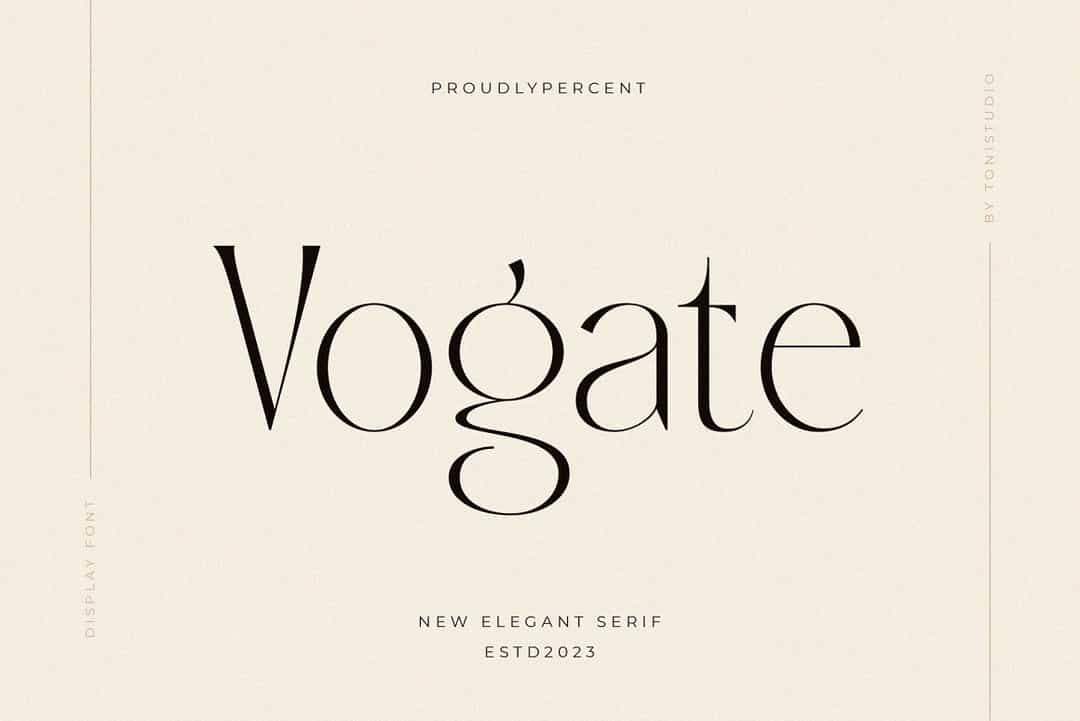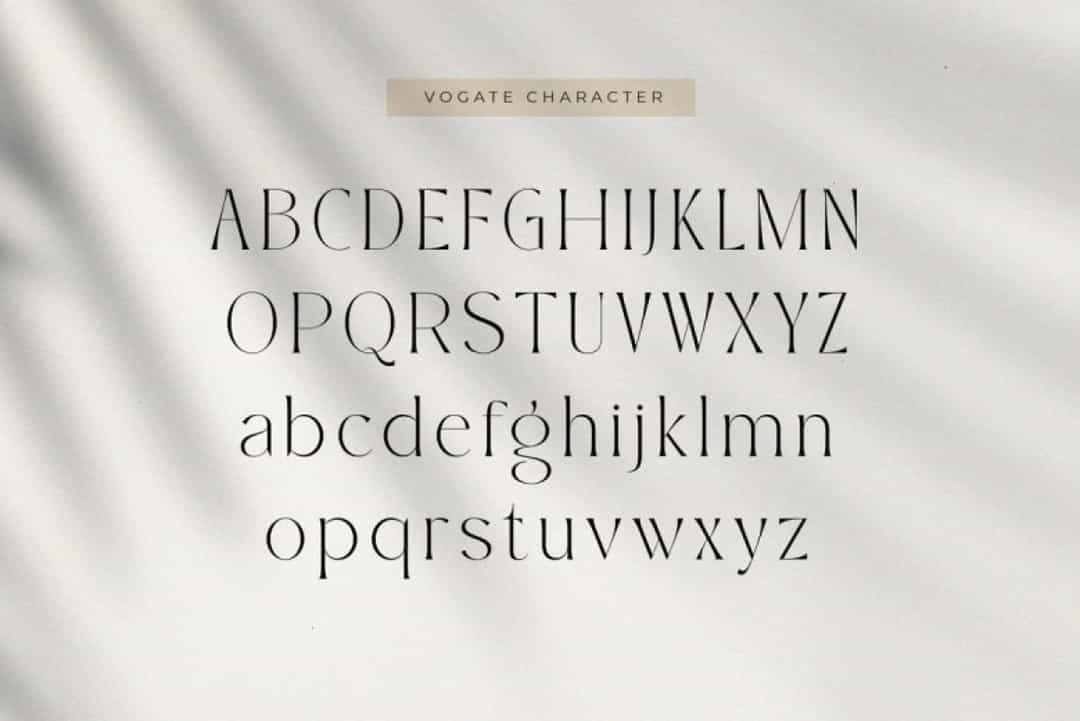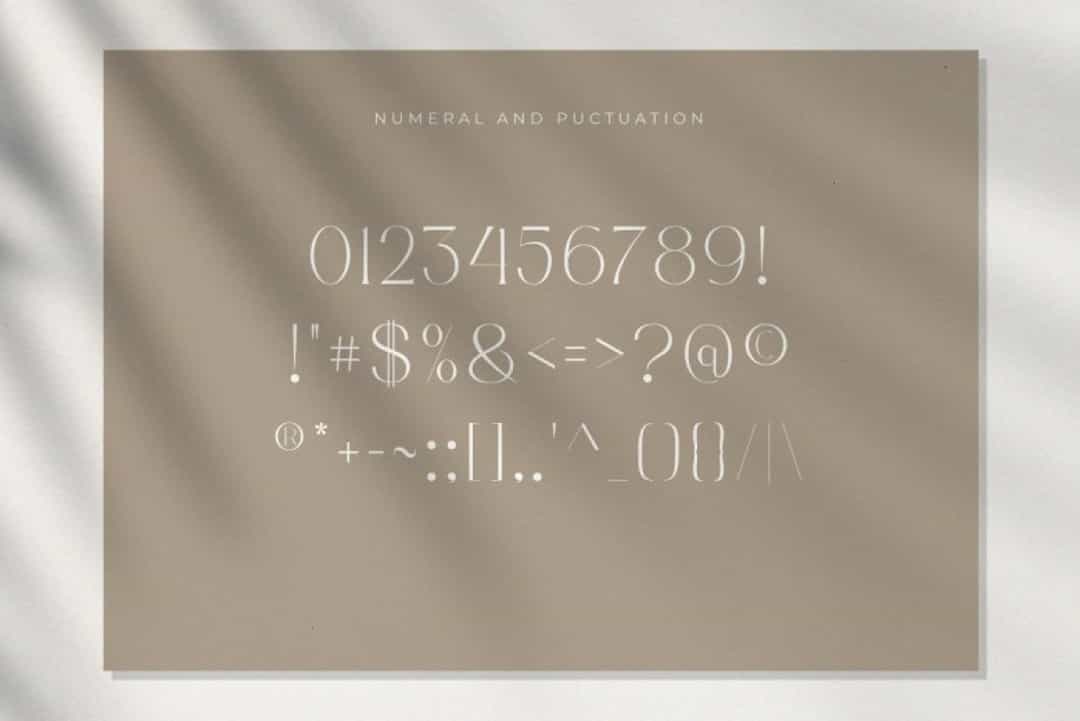
Vogate is an exquisite serif typeface with sophisticated and exotic traits, making it the ideal combination of contemporary style with timeless elegance that will add sophistication and luxury to your projects. This typeface’s modern appearance paired with its timeless beauty are ideal for imparting an air of sophistication and luxuriousness into them.